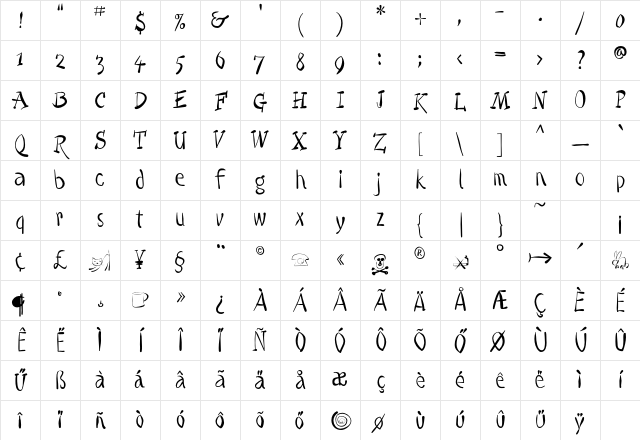
Quill Demi Free Font
Quill Demi
Style: Demi
Design Context for Quill
Quill is a composed and adaptable typeface that performs quietly and consistently across a wide range of design contexts.